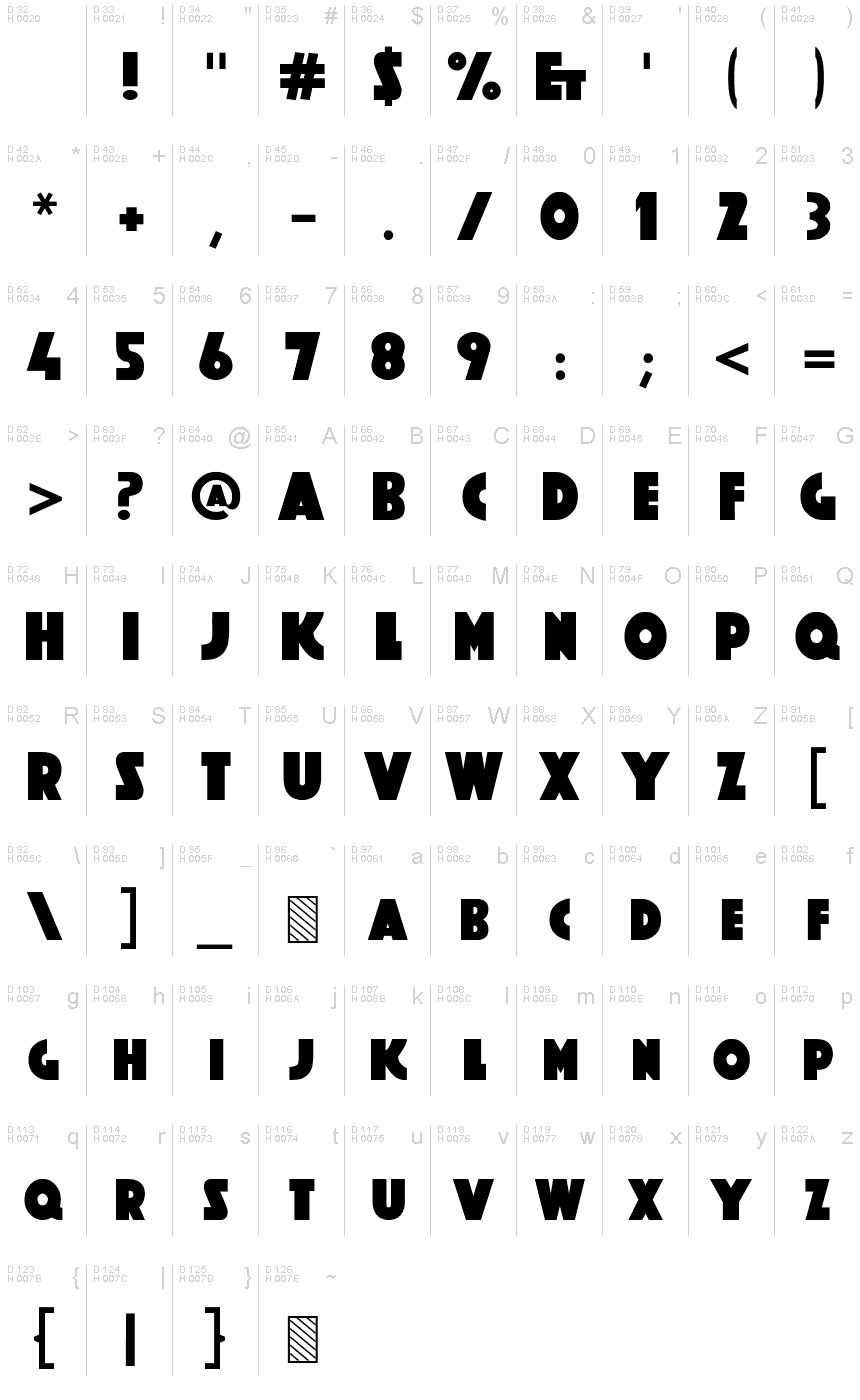
Aenigma LDR
Aenigma LDR, designed by Luigi Della Rosa, is a striking sans serif font with an extra-bold weight.
Its clean lines and strong presence make it perfect for modern logo designs that demand attention. The boldness of this font conveys confidence and power, making it ideal for headlines and titles in magazine layouts. Its versatility also extends to packaging designs, where it can be used to create eye-catching labels or tags.
Aenigma LDR's boldness makes it a great choice for display purposes, adding impact to posters or banners that need to stand out from the crowd.